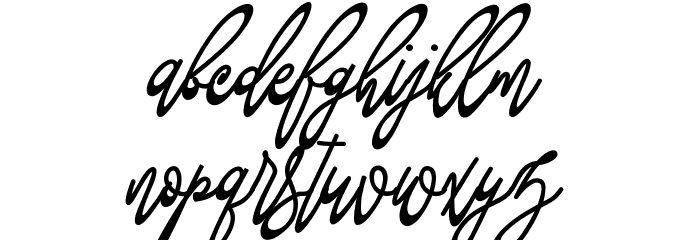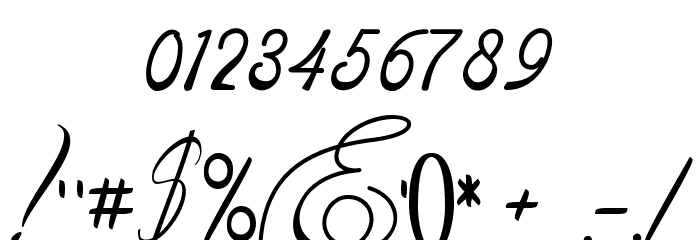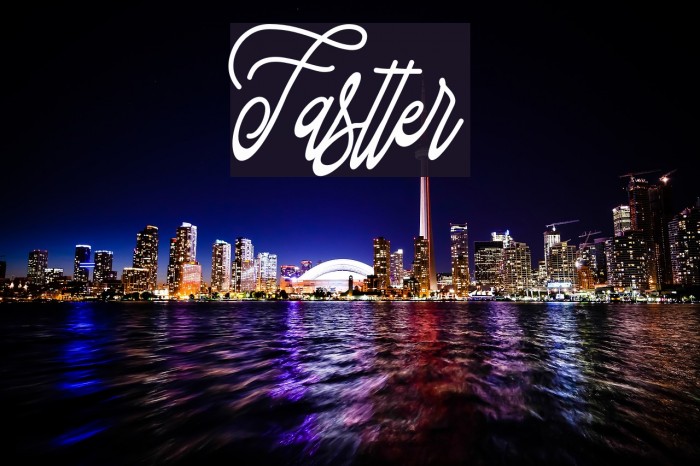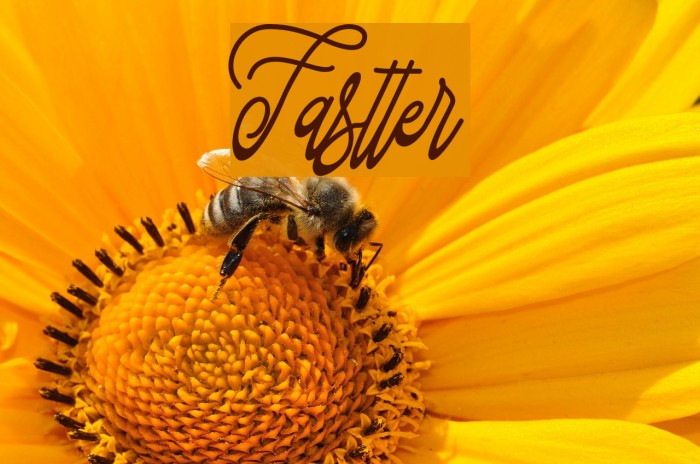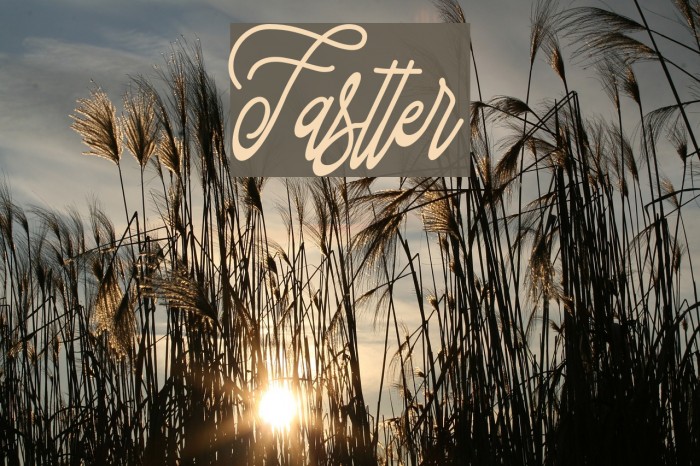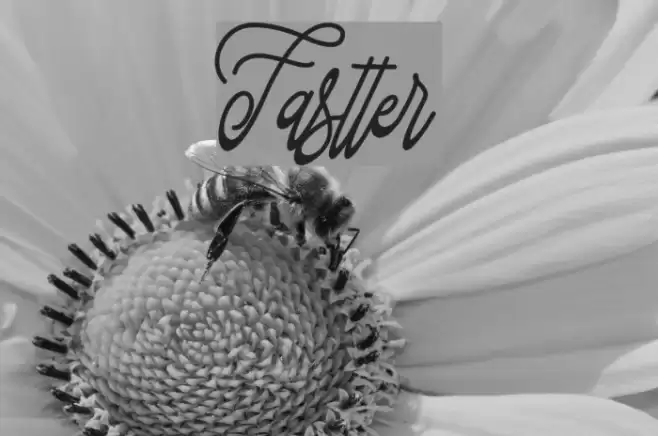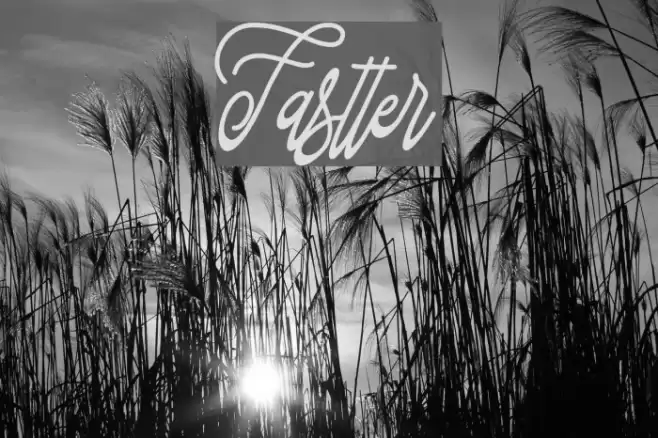
Fastter Font
This elegant script font features fluid, interconnected strokes that mimic the style of traditional calligraphy. The uppercase letters are ornate, with intricate loops and flourishes that add a touch of sophistication. The lowercase letters maintain a consistent flow, enhancing readability while preserving the decorative nature. Numbers and special characters are designed with similar attention to detail, ensuring a cohesive look across all elements. The font's graceful curves and stylish appearance make it ideal for projects that require a touch of elegance and refinement.
A decorative script font with elegant, flowing strokes and intricate flourishes.
- Proposed Projects: Ideal for wedding invitations, elegant branding, greeting cards, and luxury product packaging.
- Use Case: Logos, Invitations, Decorative Text